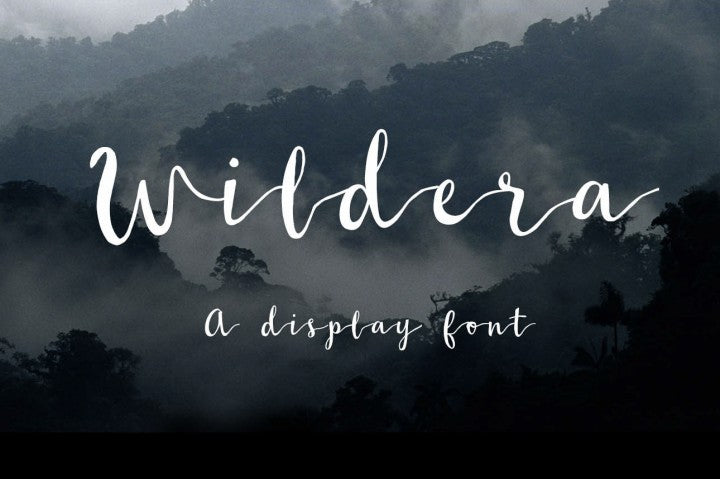
Free Font Wildera - A Display Typeface
Featuring the beautiful free font wildera - a display typeface. The Hungry JPEG has created this amazing and beautiful free typeface. Showcase your designs like a graphic design pro by adding a new touch with this fancy font.